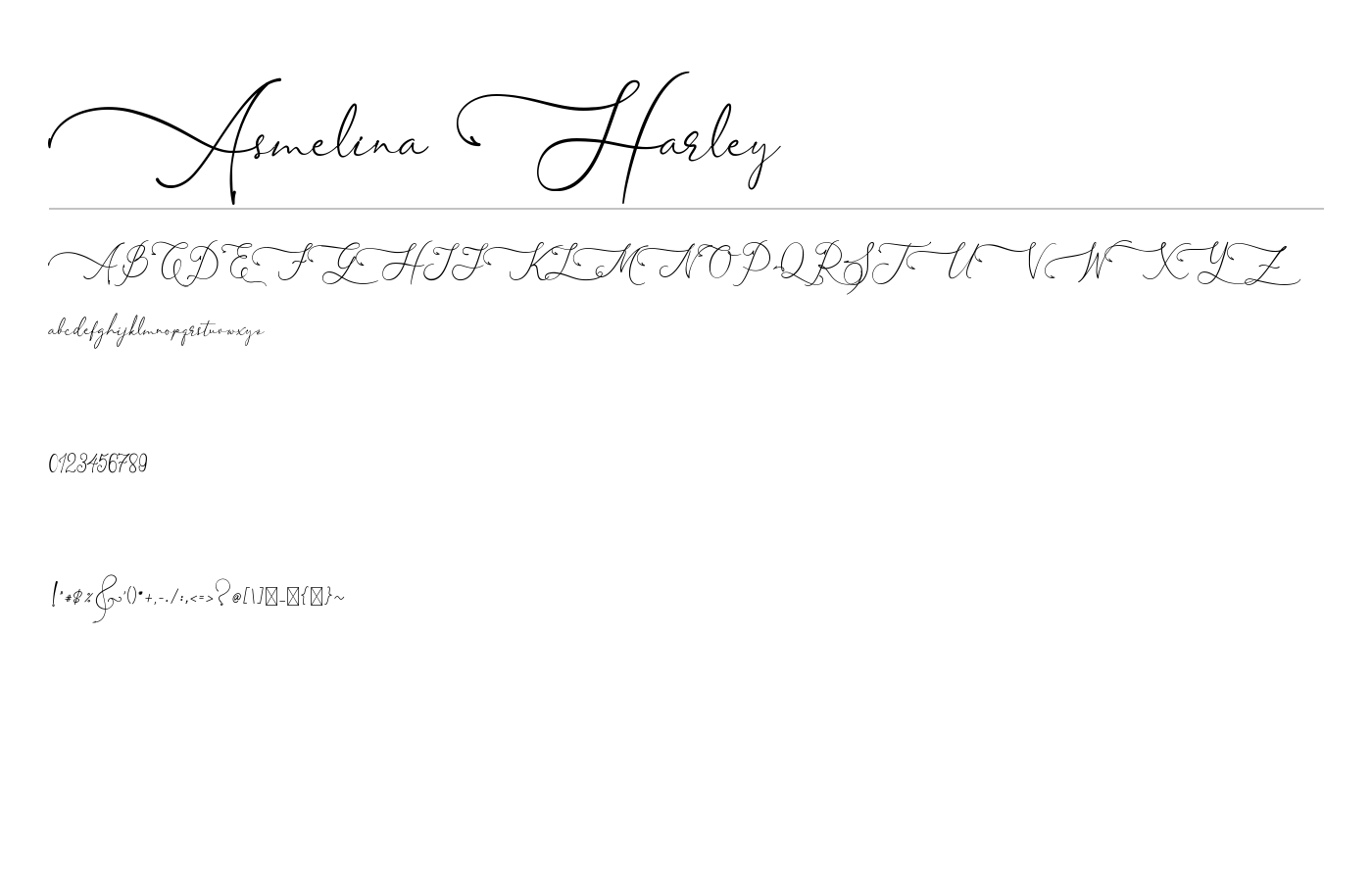
Asmelina Harley is a delicate script font characterized by its elegant, flowing lines and intricate swashes, giving it a refined and graceful appearance. With a fine weight and high contrast between strokes, this font exudes a luxurious and romantic feel, making it ideal for wedding invitations, high-end branding, and elegant packaging. Its sophisticated style works best in larger sizes to showcase the beautiful details, perfect for headlines and decorative uses rather than body text.
Asmelina Harley Font